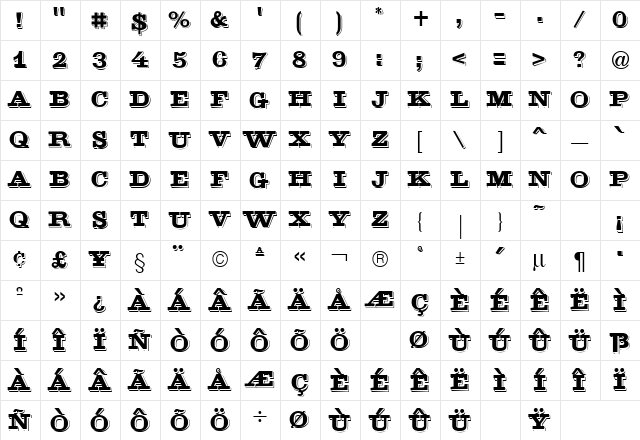
Gold Rush Regular
Design Context for Gold Rush Typeface
Gold Rush is a composed and adaptable typeface that performs quietly and consistently across a wide range of design contexts.